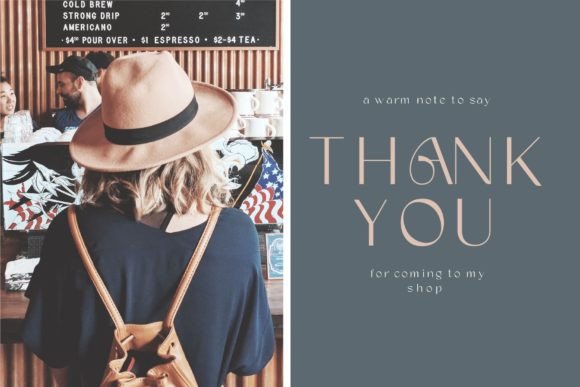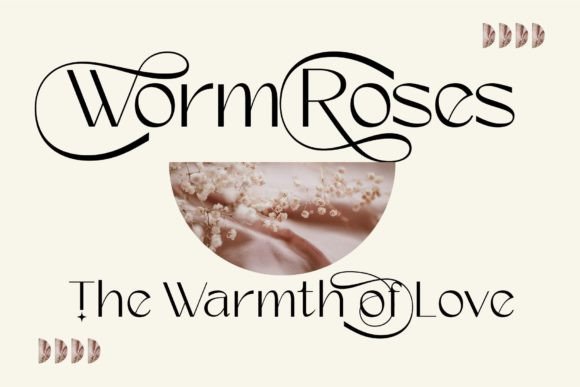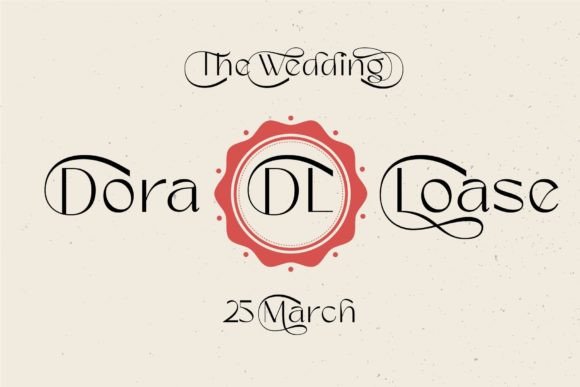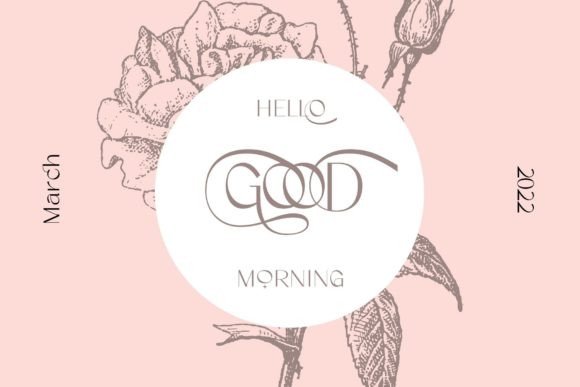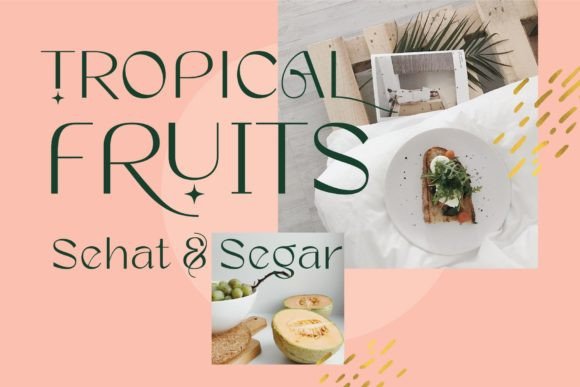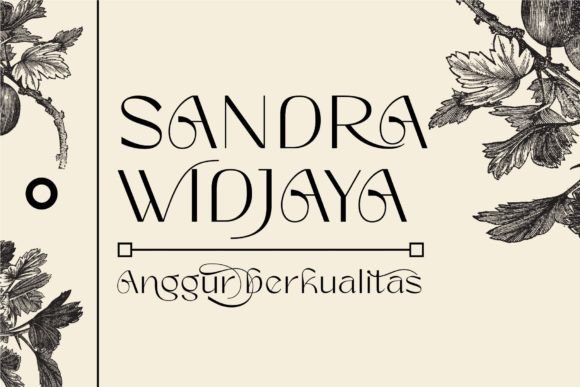
Introducing Blade Rush Font: Elevate Your Design with Elegance
Are you on the hunt for a font that exudes elegance and sophistication? Look no further than Blade Rush Font, a stunning sans serif font designed to take your visual projects to the next level. With its comprehensive set of characters, multilingual symbols, and beautiful ligatures, Blade Rush is the perfect choice for designers and crafters seeking to create breathtaking designs.
What is Blade Rush Font?
Blade Rush Font is a meticulously crafted sans serif font that boasts a full set of uppercase and lowercase letters, multilingual symbols, numbers, punctuation, and ligatures. Its clean and modern design makes it an ideal choice for a wide range of applications, from posters and magazines to beauty brand designs and more.
Key Features of Blade Rush Font
- Comprehensive Character Set: Blade Rush Font features a complete set of uppercase and lowercase letters, ensuring that you have all the characters you need to create stunning designs.
- Multilingual Symbols: With multilingual symbols, you can create designs that cater to a global audience, making it perfect for international brands and projects.
- Ligatures: The font includes beautiful ligatures that add a touch of elegance to your designs, allowing you to create visually appealing text.
- Swash Glyph: Blade Rush Font also features a swash glyph, which can be used to add a decorative touch to your designs, making them stand out from the crowd.
Perfect for Elegant Designs
Blade Rush Font is specifically designed with elegance in mind, making it perfect for projects that require a sophisticated look and feel. Its sans serif design ensures that your text is clear and easy to read, while its elegant lines and curves add a touch of refinement to your designs.
Ideal for Various Applications
Blade Rush Font is versatile and can be used in a variety of applications, including:
- Poster Design: Create eye-catching posters that grab attention with Blade Rush Font’s bold and elegant design.
- Magazine Design: Use Blade Rush Font to create visually appealing magazine layouts that showcase your content in style.
- Beauty Brand Design: Elevate your beauty brand with Blade Rush Font’s elegant design, perfect for creating luxurious and high-end branding materials.
Why Choose Blade Rush Font?
With so many fonts available, why choose Blade Rush Font? Here are just a few reasons:
- Unique Design: Blade Rush Font boasts a unique design that sets it apart from other fonts, ensuring that your designs stand out.
- Elegant and Sophisticated: The font’s elegant and sophisticated design makes it perfect for projects that require a refined look and feel.
- Versatile: Blade Rush Font is versatile and can be used in a variety of applications, making it a great addition to your font library.
In conclusion, Blade Rush Font is an exceptional sans serif font that offers a unique blend of elegance and sophistication. With its comprehensive character set, multilingual symbols, and beautiful ligatures, it’s the perfect choice for designers and crafters seeking to create stunning designs. Whether you’re working on a poster, magazine, or beauty brand design, Blade Rush Font is sure to elevate your project to new heights.